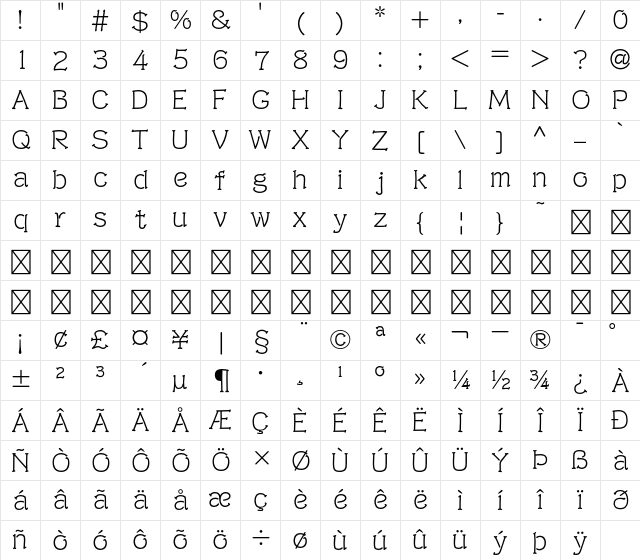
A-OTF CinemaLetter Std L
Design Context for A-OTF CinemaLetter Std
A-OTF CinemaLetter Std is a composed and adaptable typeface that performs quietly and consistently across a wide range of design contexts.